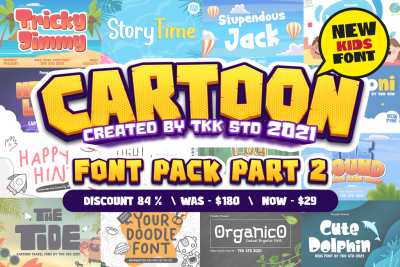
Comic and cartoon font are a natural option for cartoons and comic books. However, cartoon fonts can be used in any design project that requires an edgy design since they have a bold design.
They are an amazing choice for large poster and header designs. In addition, some of them can also be utilized in children’s books to make them more readable.
- Use the cartoon font and artwork for packaging, book covers, logos and branding.